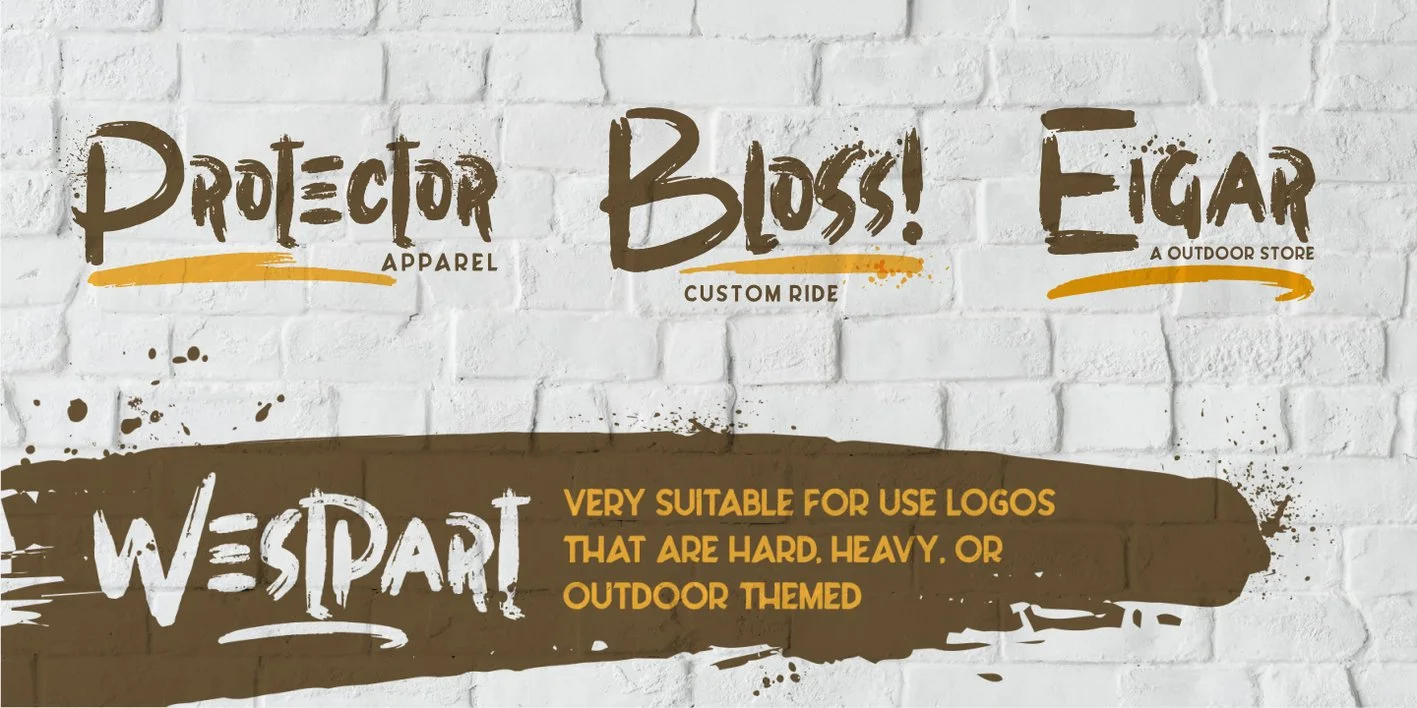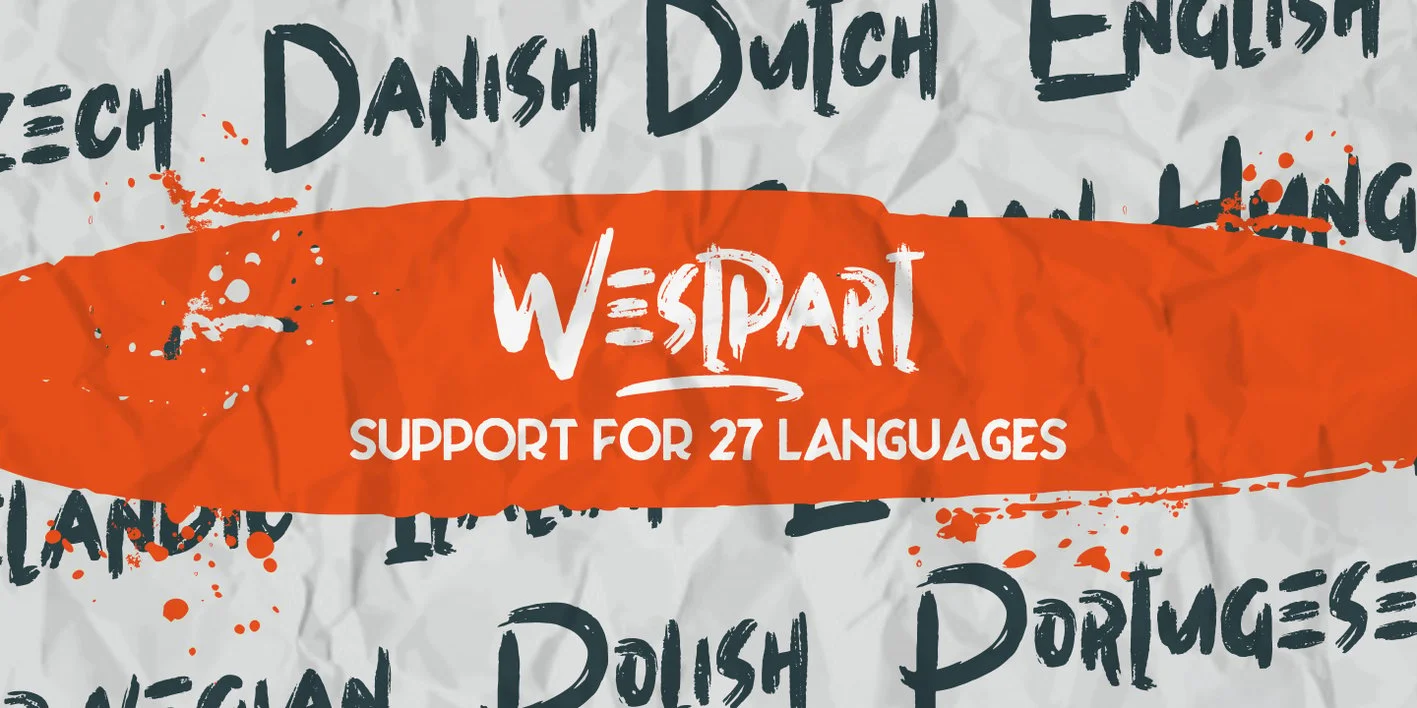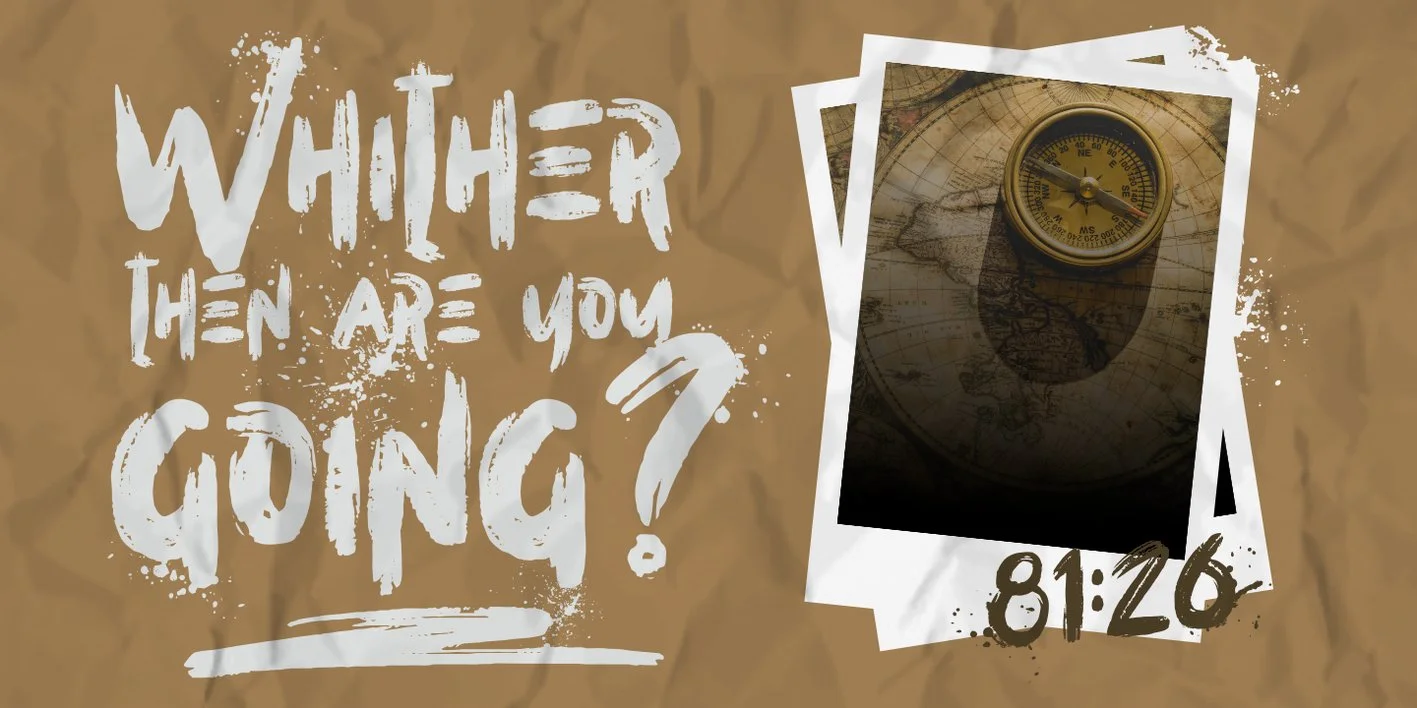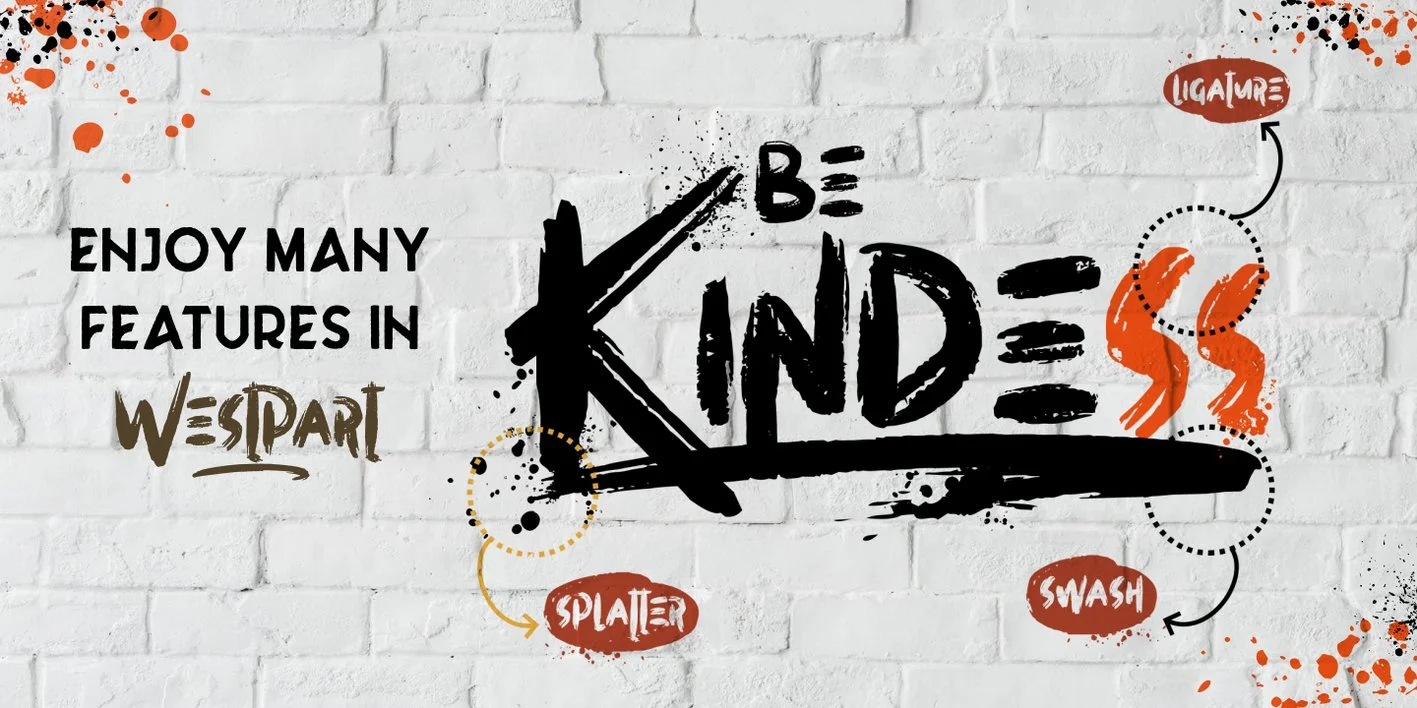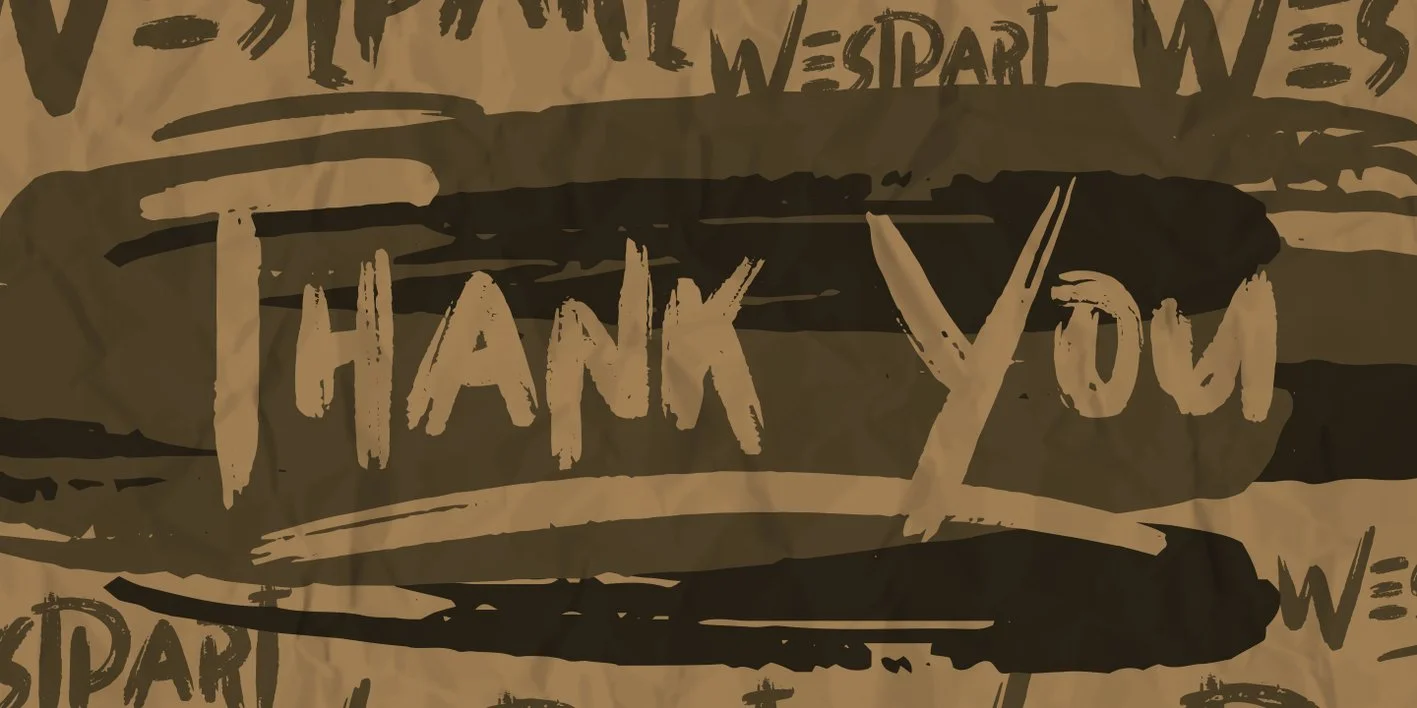
Westpart Font
There is a particular satisfaction in finding a typeface that delivers versatility across print and screen contexts without compromise. Westpart consistently provides it. The typeface brings a versatile sensibility to a broad range of creative disciplines, with controlled contrast that rewards close inspection that holds up whether the work is print-first or screen-first.
In practice, Westpart proves particularly effective for annual reports, packaging design, poster creation, signage systems, product labels. Designers reaching for it find that the type decisions feel resolved rather than laboured — a useful quality when client timelines are tight.
The range of applications extends to logo design, editorial layouts, brand identity systems, advertising campaigns. That breadth is deliberate: the proportions and spacing were stress-tested across a wide range of mock briefs before the typeface was finalised.
Motion designers building title sequences and lower thirds find Westpart a reliable choice for projects that demand both personality and restraint. The design avoids the self-conscious quirkiness that dates quickly, settling instead for considered distinctiveness that holds up over time.